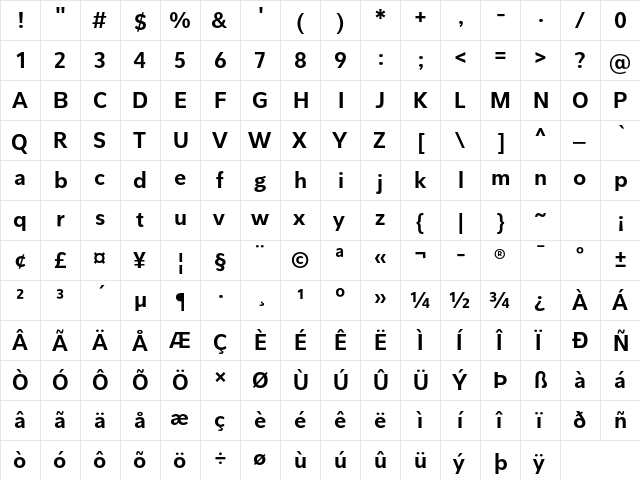
Pelita Std Bold
| Designer | Anugrah Pasau |
Design Context for Pelita Std Typeface
Pelita Std offers clean, dependable letterforms without strong stylistic allegiance, making it a practical choice for designers who need flexibility. The heavy weight commands attention and anchors typographic hierarchies.